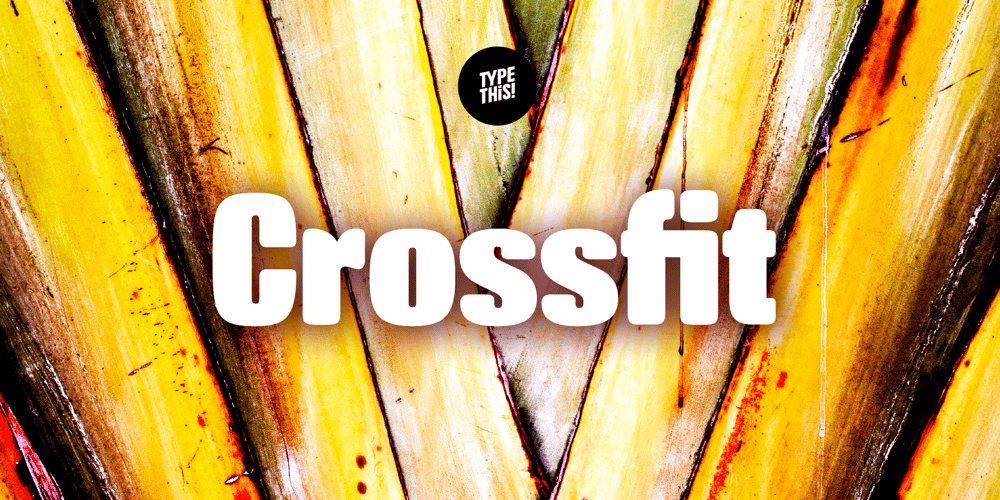
Crossfit
Crossfit font
Crossfit Font Family was designed by Anita Jürgeleit and published by TypeThis!Studio. Crossfit contains 9 styles and family package options. Crossfit is a new headline font family, designed by Anita Jürgeleit at TypeThis!Studio. It’s suitable for big sizes and titles, such as big movie posters, advertising or editorial headlines. Matching topics might be adventures, sports, strong nature and all kind of challenging life events. Its bold stability transformes your creation into a non questionable design. It is bold, clear and also friendly thanks to its rounded corners. www.typethis.studio